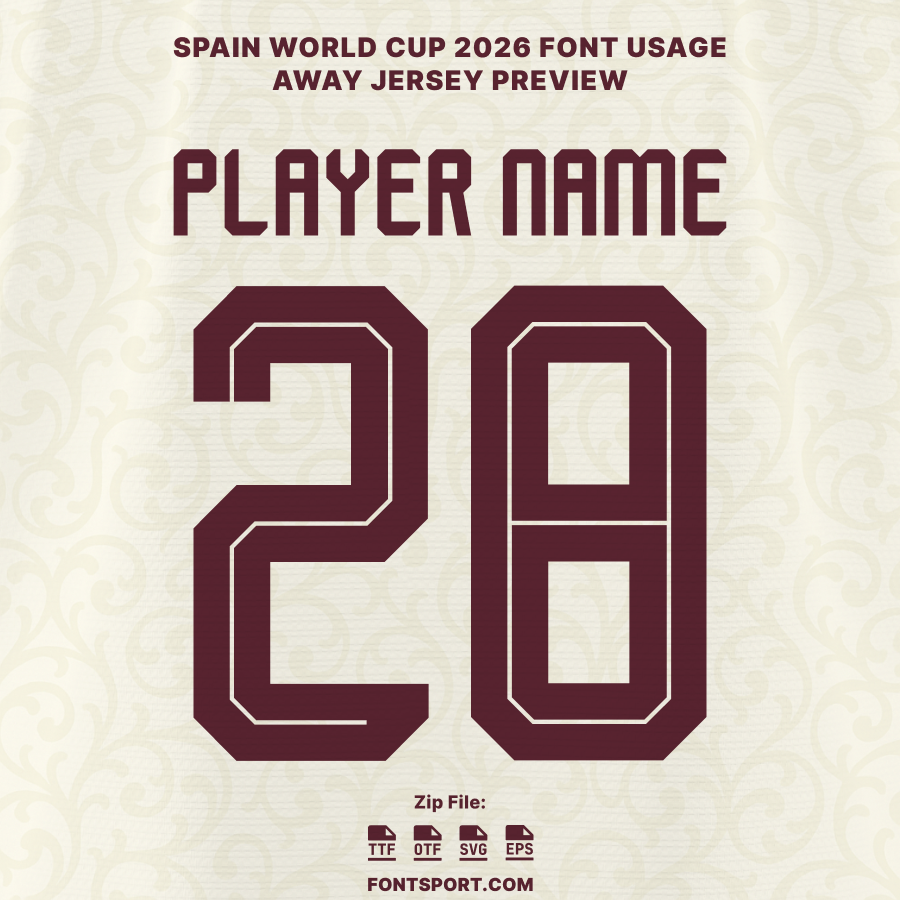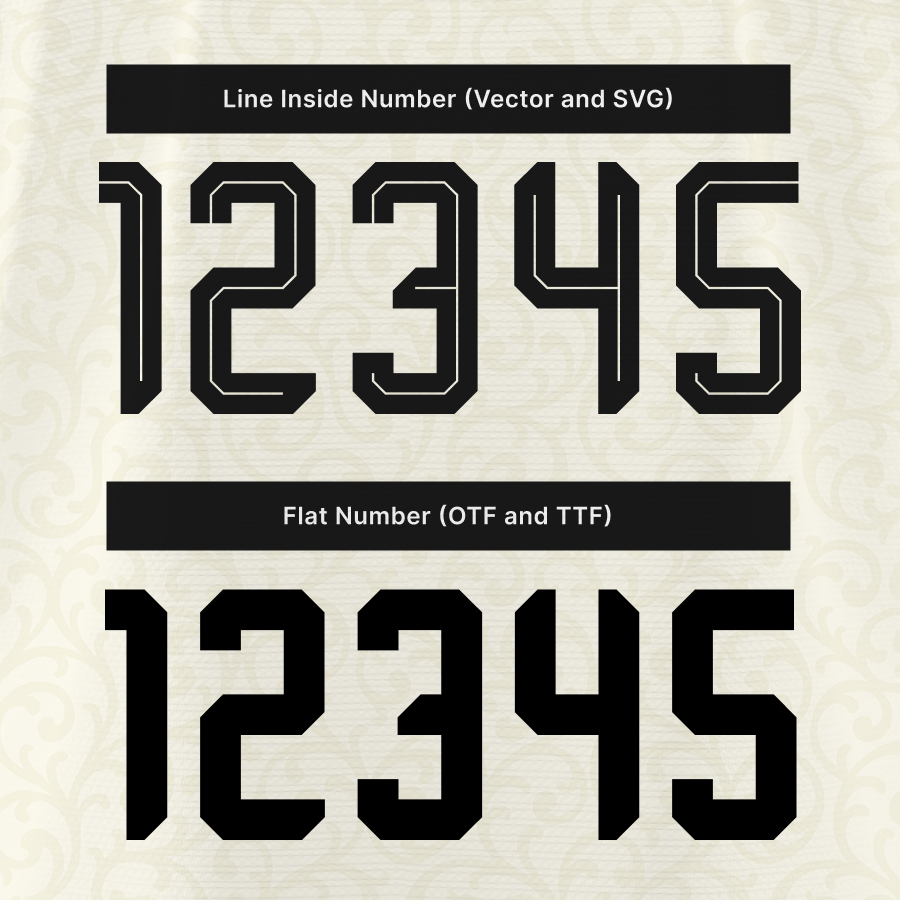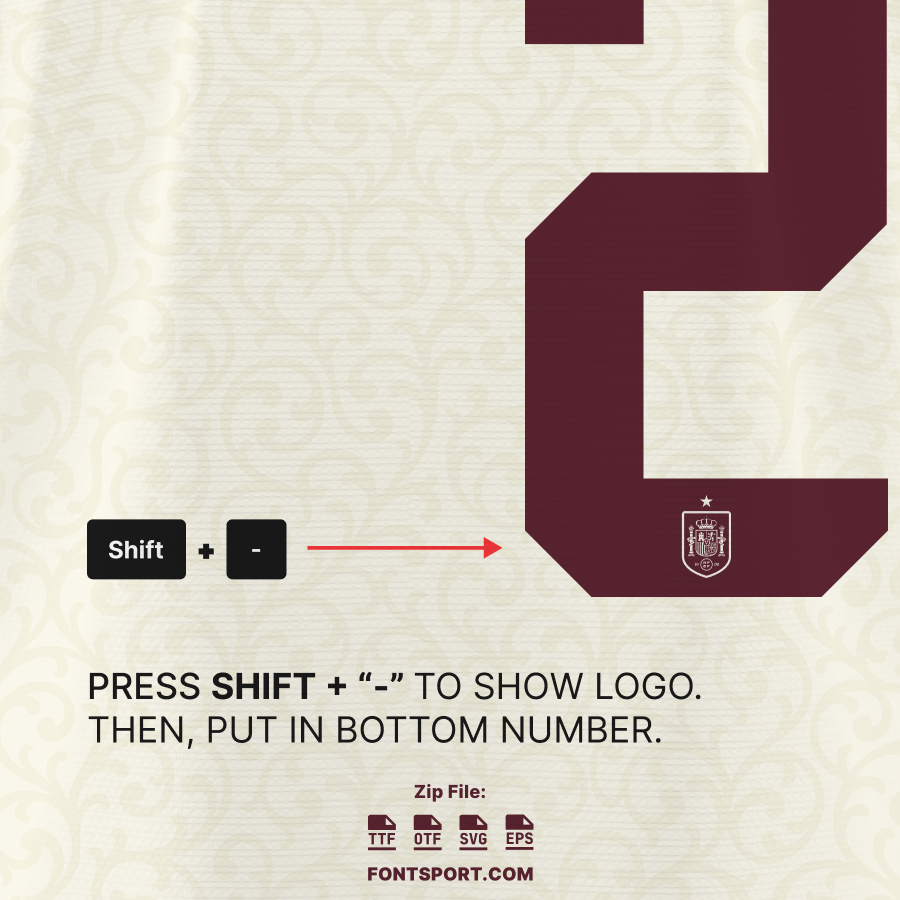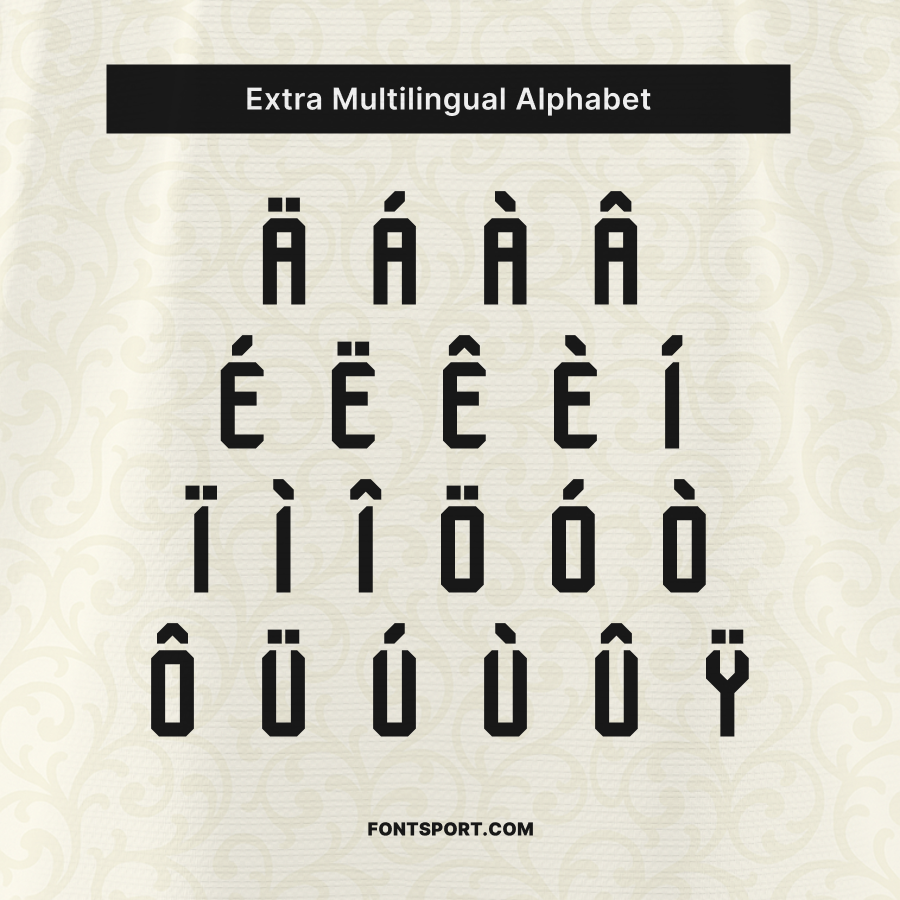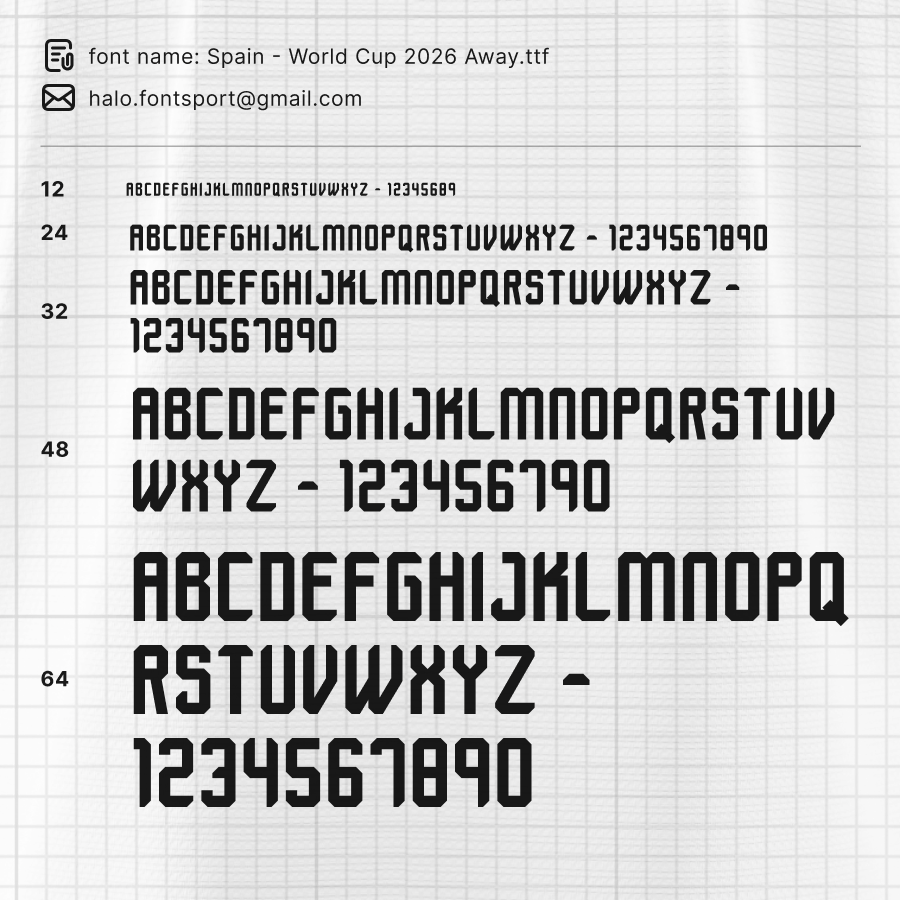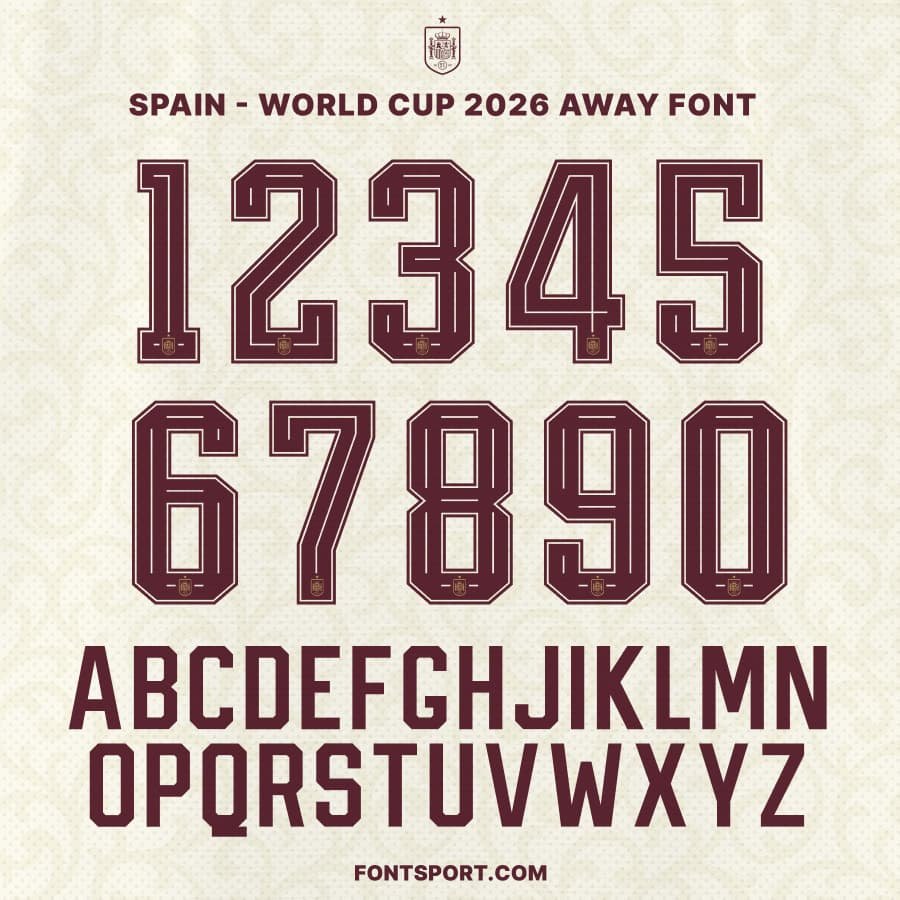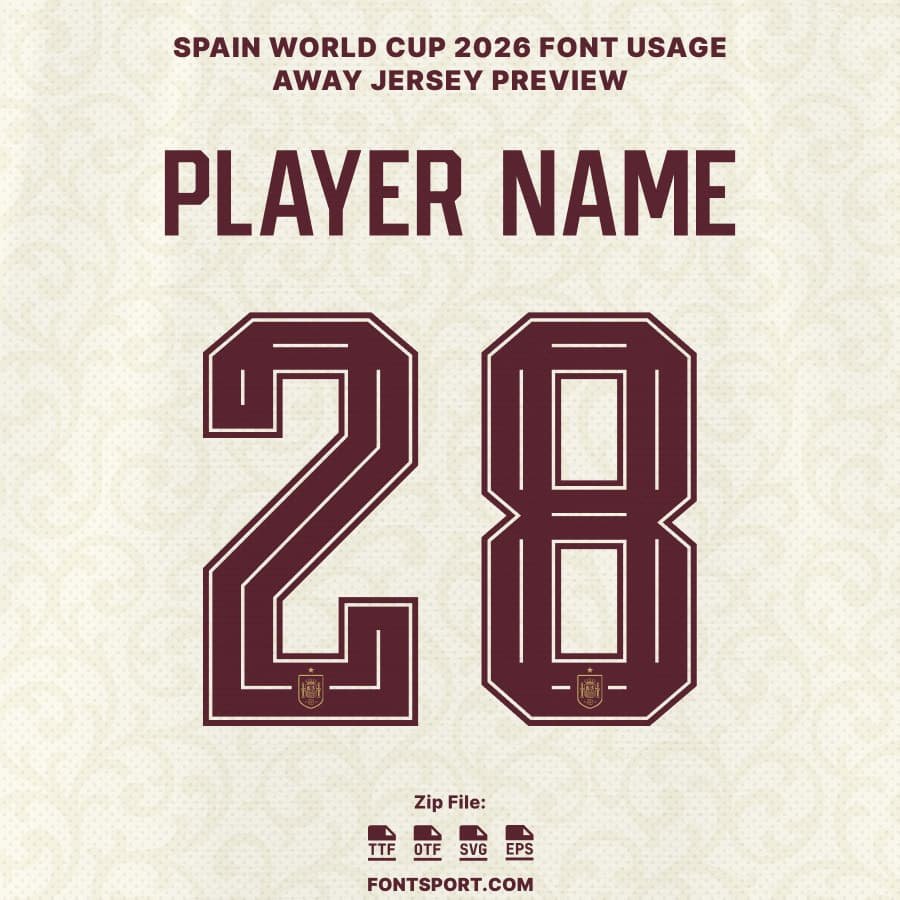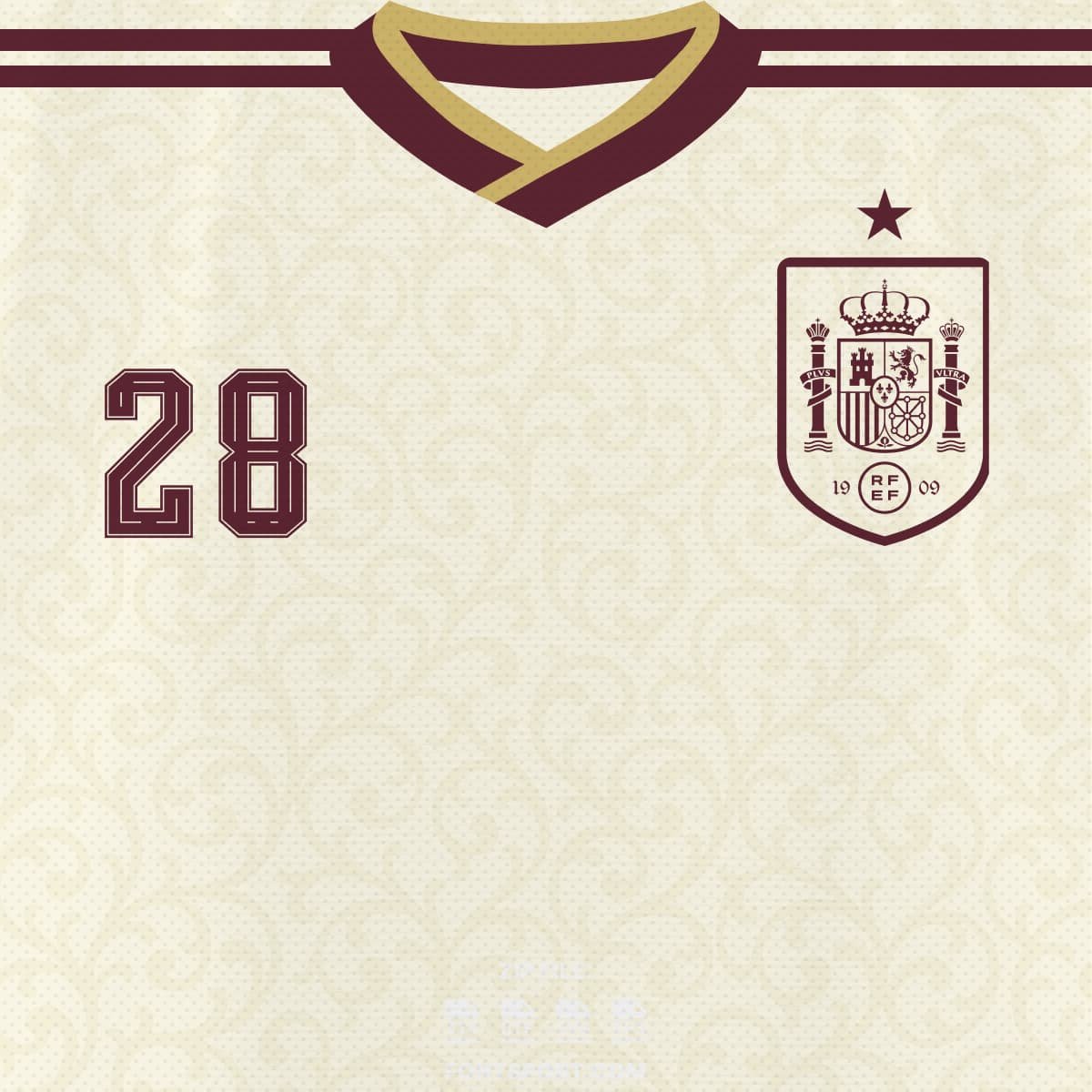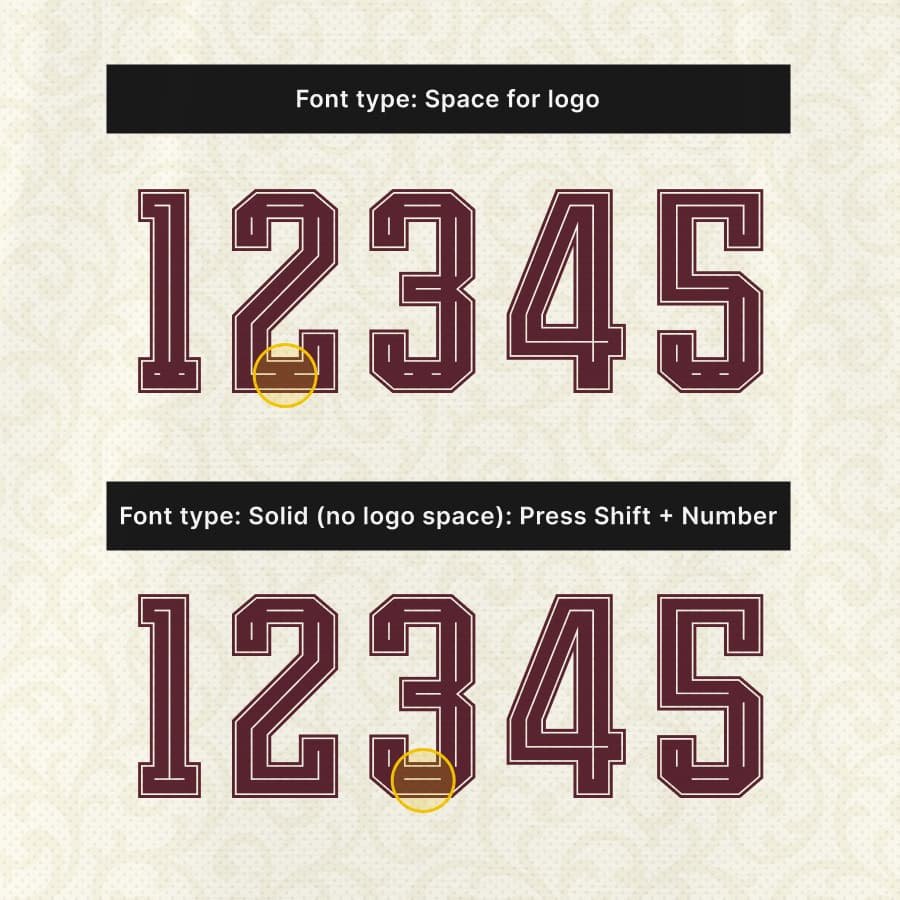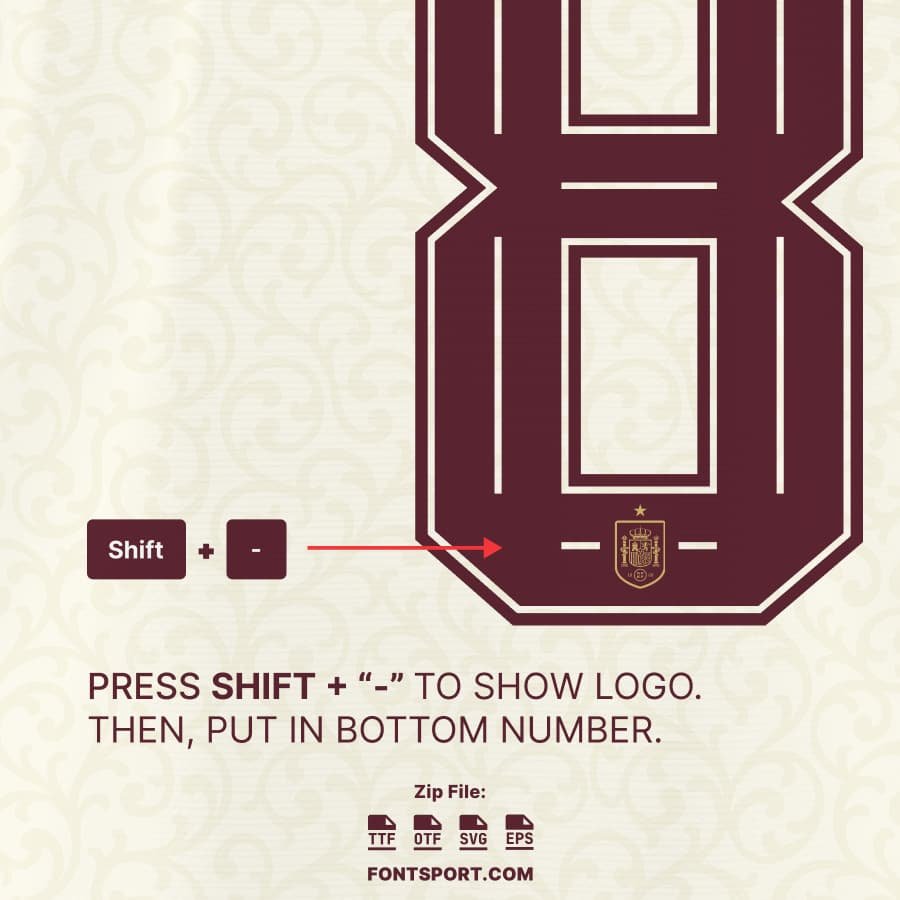
Spain World Cup Away 2026 Font Kit – La Roja’s Bold New Typeface
Unleash Spain’s confidence and heritage with the Spain World Cup Away 2026 Font Kit, inspired by the team’s new away-kit design for the FIFA World Cup 2026. This exclusive typeface embodies Spain’s modern football identity—sleek, expressive, and unmistakably powerful.
Designed for creators, designers, and fans, the font reflects the same craftsmanship seen on Spain’s match jerseys, combining geometric precision with strong legibility for every name, number, and headline.
• Full uppercase alphabet (A–Z) and numbers (0–9) in Spain’s official 2026 away-style lettering
• Spain national crest glyph embedded in font characters
• Multilingual Latin alphabet support with diacritics
Why Designers & Fans Choose This Spain Font Kit
• 🏆 Includes the Spain crest logo glyph for complete authenticity
Spain in the 2026 World Cup Context
Spain heads into the FIFA World Cup 2026 with renewed ambition, blending youthful energy and tactical brilliance. Under coach Luis de la Fuente, the squad’s style continues to evolve, featuring dynamic talents like Pedri, Gavi, and Rodri.
The away kit—reportedly featuring a deep navy base with subtle red-and-gold details—pays homage to Spain’s royal heritage while introducing a contemporary edge. This font kit mirrors that duality: heritage meets modern design.
For designers and fans, this typeface bridges football passion and creative excellence—perfect for any Spain-themed design project.
Spain World Cup 2026 Away Font – Full Alphabet and Number Typeface with Crest